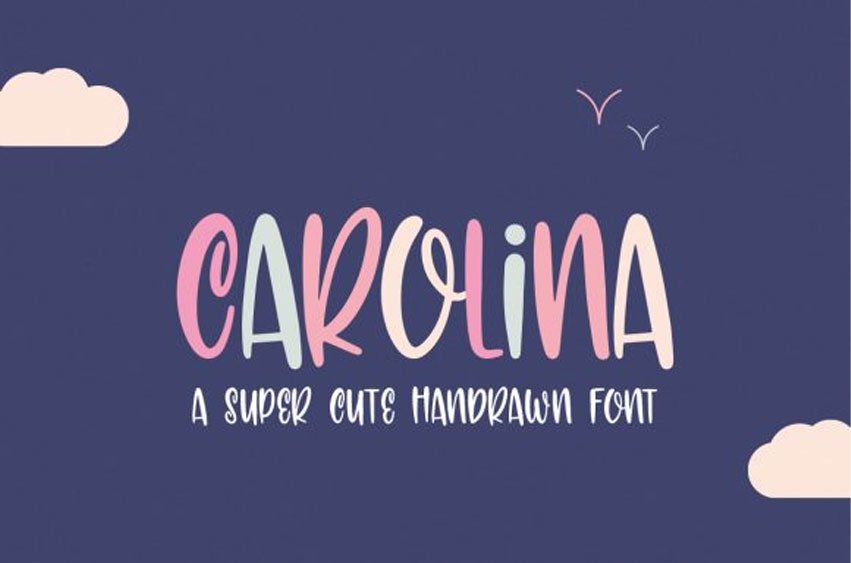
Carolina Font is a cute and friendly handwritten font. Featuring a curvy, readable and down to earth style, this font will make each of your designs look gorgeous.